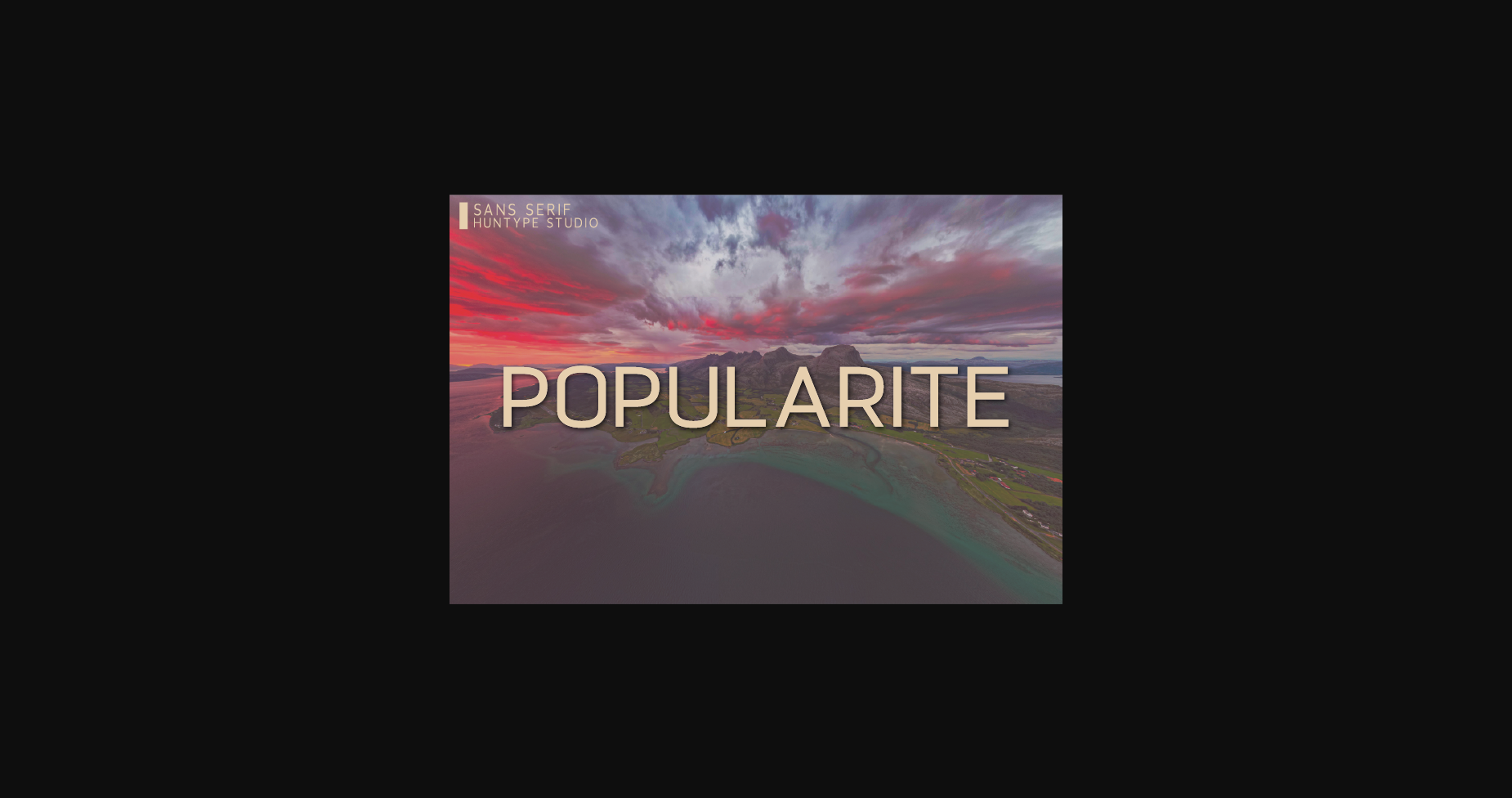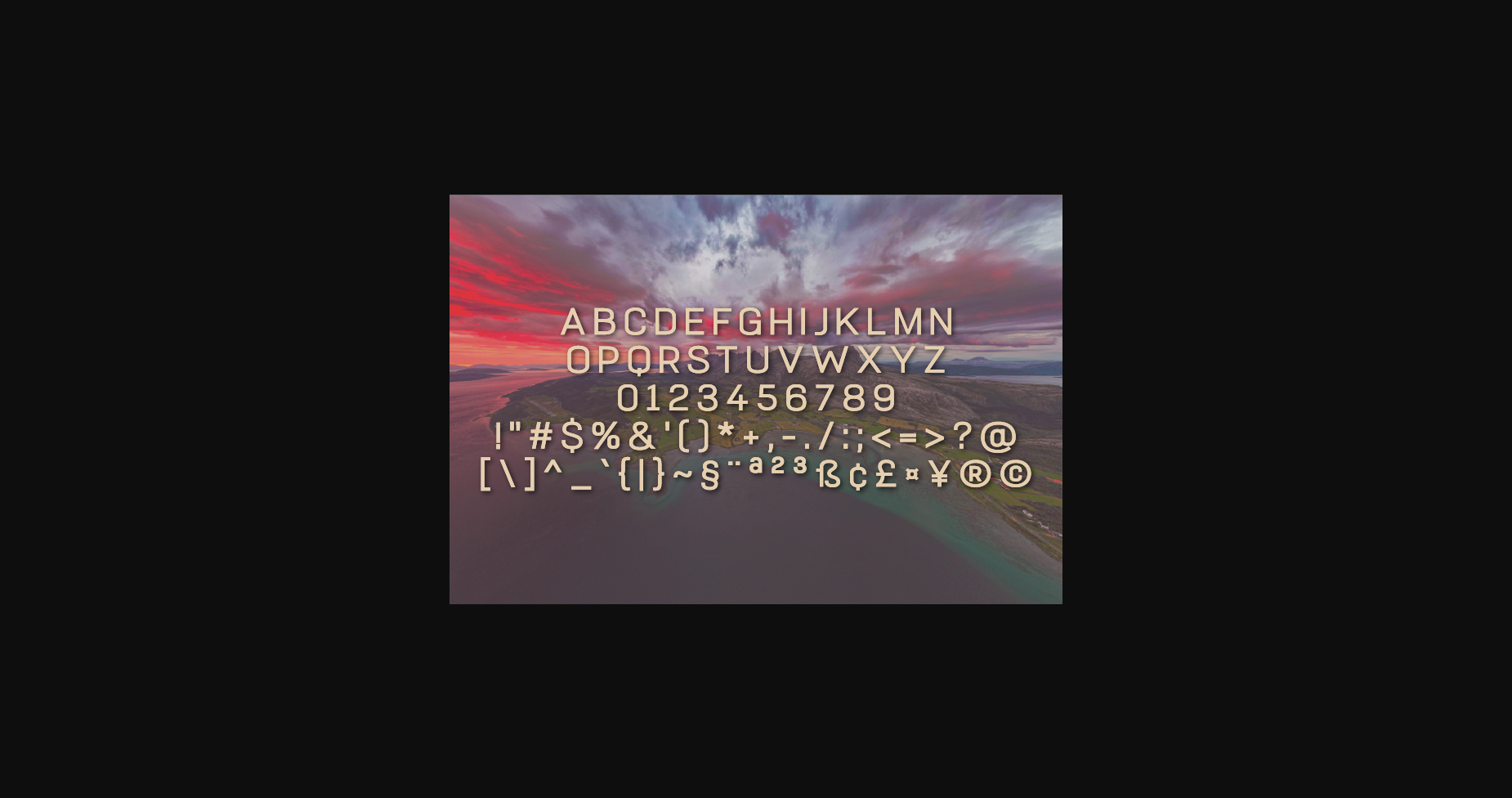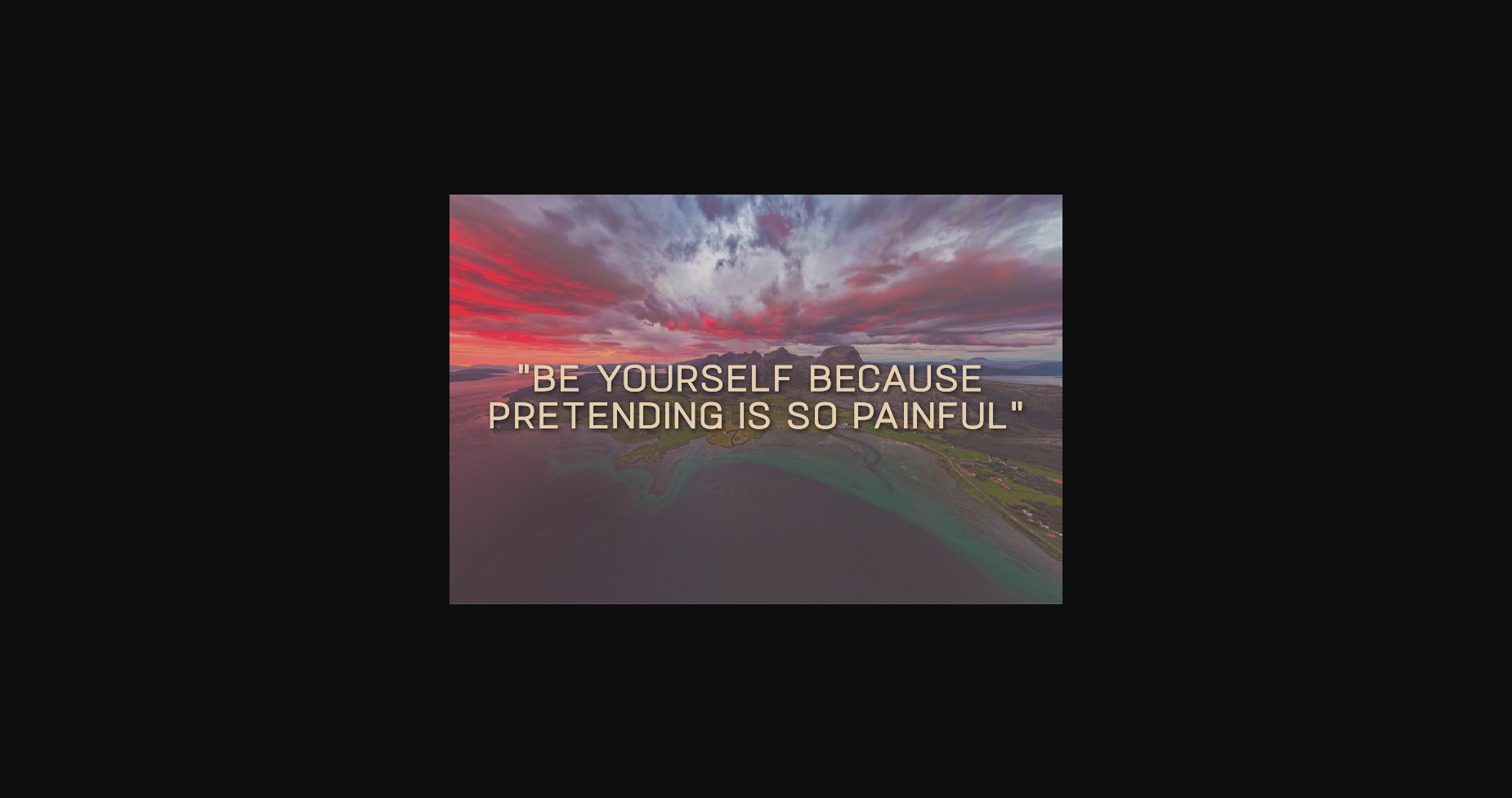
Popularite Font
About Popularite Font
Popularite is a versatile and simple lettered sans serif font. No matter the topic, this font will be an incredible asset to your fonts’ library, as it has the potential to elevate any creation.